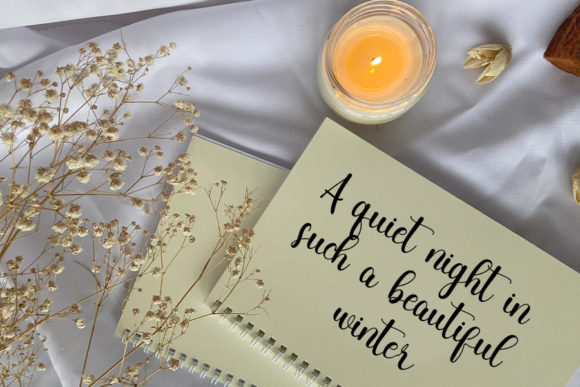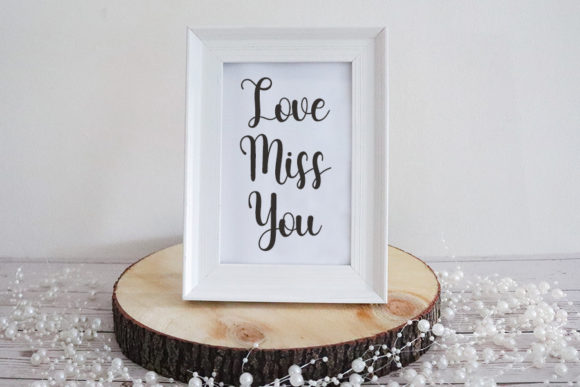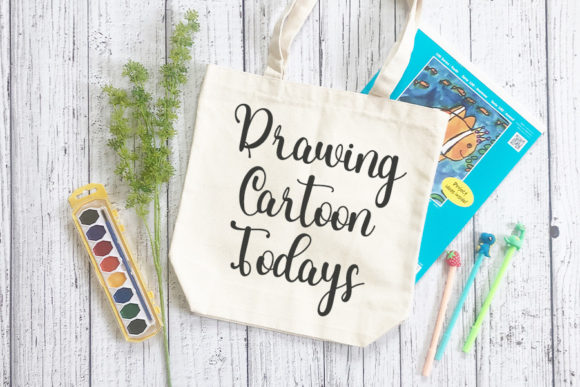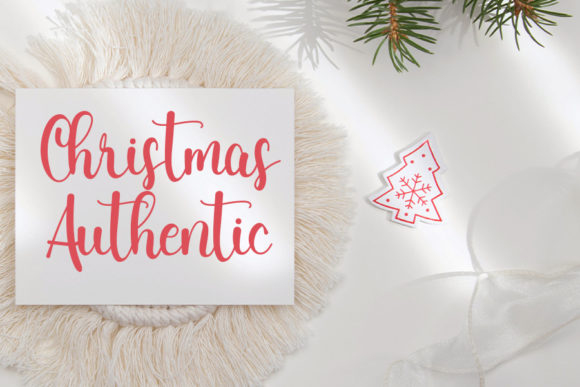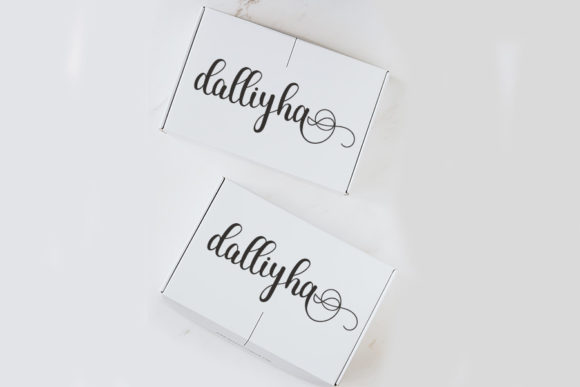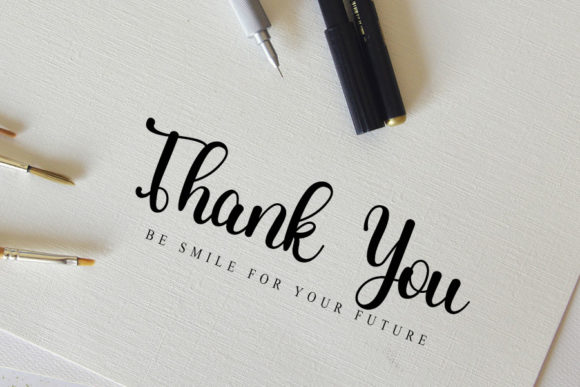
The Perfect Script for Your Next Design Project
Have you ever sat at your desk, staring blankly at your computer screen, trying to find the perfect font for your next design project? The blank page can be intimidating, but what if you had the perfect tool to bring your ideas to life? That’s where the enchanting Farmhouse Font comes in – a delicate script that’s perfect for adding a touch of elegance to your designs.
Farmhouse Font is a versatile and charming script that can be used for everything from greeting cards to headlines and logos. Its PUA encoding means that you can easily access all of its beautiful glyphs and swashes, giving you endless possibilities for creative expression. Whether you’re a seasoned designer or just starting out, Farmhouse Font is a valuable addition to your toolkit, offering a level of sophistication and charm that’s hard to find in other fonts.
Farmhouse Font Key Features
- Font Family: Farmhouse Font is a unique, handwritten font designed to evoke a rustic, countryside feel.
- Character Count: The font includes 300+ glyphs, making it suitable for a wide range of applications.
- Size: The font is available in 1 font weight, with no bold or italic variations.
- Resolution: Optimized for high-resolution displays (Retina, 4K, etc.), with clear and crisp typography at any size.
- Unique Characteristics: The Farmhouse Font features a distinctive, hand-drawn feel with subtle imperfections, giving it a charming, organic look.
Farmhouse Font Review
I recently had the chance to work with the Farmhouse Font, and here’s my honest review.
- Unique and Distinctive Style: The Farmhouse Font has a very distinct, rustic feel that’s perfect for country-themed designs or projects that need a touch of nostalgia.
- High-Quality Rendering: The font is well-rendered and has a clear, crisp appearance, even at larger font sizes.
- Limited Font Styles: The Farmhouse Font is a single-family font, which means you don’t get a lot of variations in styles or weights.
- Not Ideal for Small Text: While the font looks great at larger sizes, it can become difficult to read at smaller text sizes due to its unique style.
- No Unicode Support: This might be a concern if you’re working on projects that require a wide range of languages or characters.
Overall, I think the Farmhouse Font is a great choice for specific design projects that require a unique, rustic feel. However, it may not be the best choice for more general design work or projects that require a high degree of flexibility.
Tips: Use Farmhouse Font for headings and titles to add a rustic touch to your designs. Experiment with different font sizes and colors to create visual hierarchy.
Tips: Use Farmhouse Font for hand-lettered or distressed text effects. Experiment with layer blending modes and opacity to achieve unique textures.
Tips: Use Farmhouse Font for headings and titles to add a rustic touch to your presentations. Experiment with different font sizes and colors to create visual hierarchy.
Farmhouse Font is ideal for:
– Rural or country-themed designs.
– Distressed or hand-lettered text effects.
– Rustic or vintage-inspired designs.
Carolyna Pro is a modern, elegant serif font with a touch of vintage charm. It’s suitable for luxury branding, high-end packaging, and invitations. Compared to Farmhouse Font, Carolyna Pro has a more streamlined and refined look, making it a great choice for designs that require a touch of sophistication.